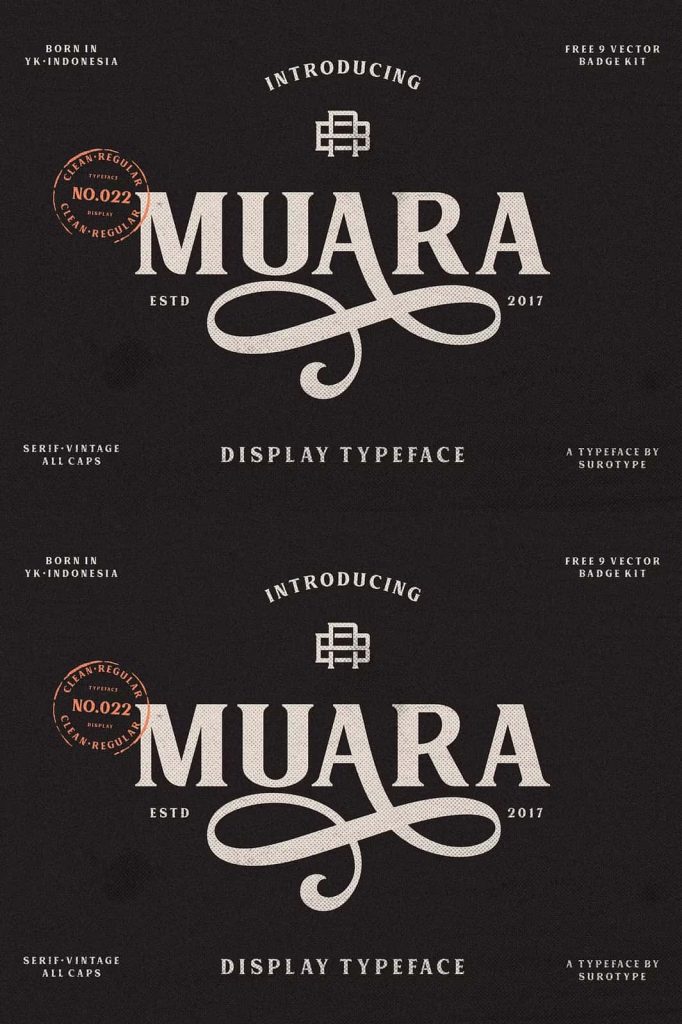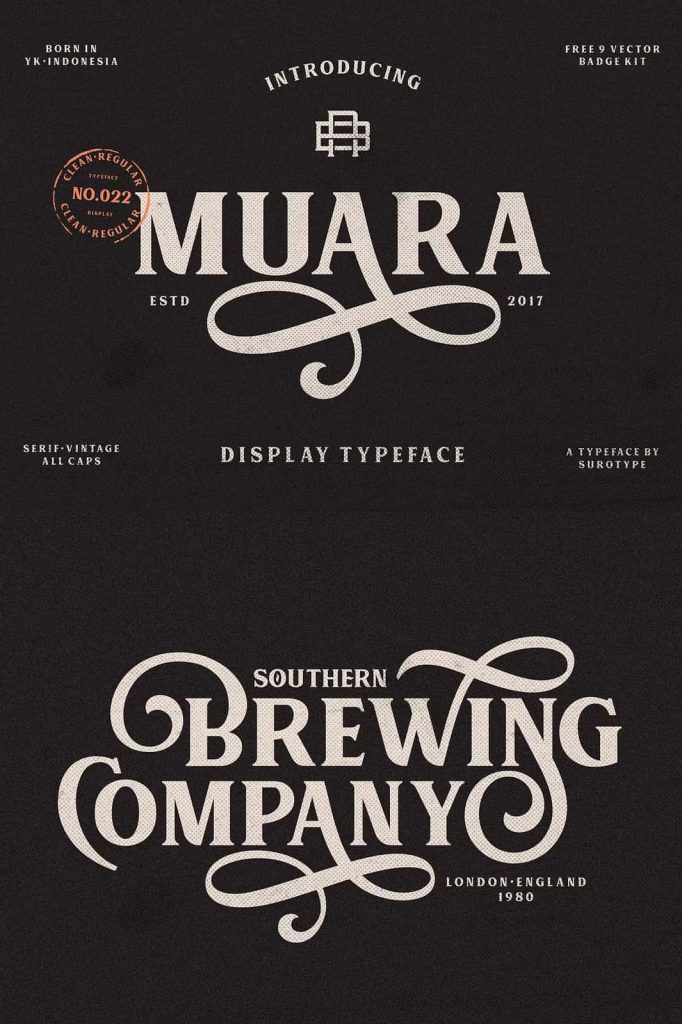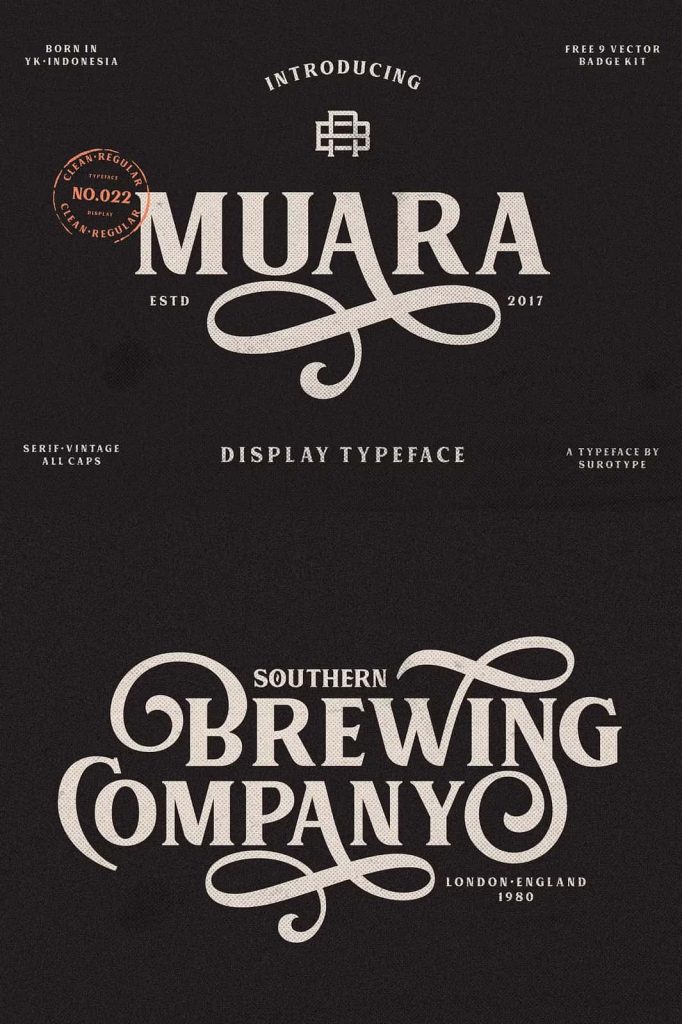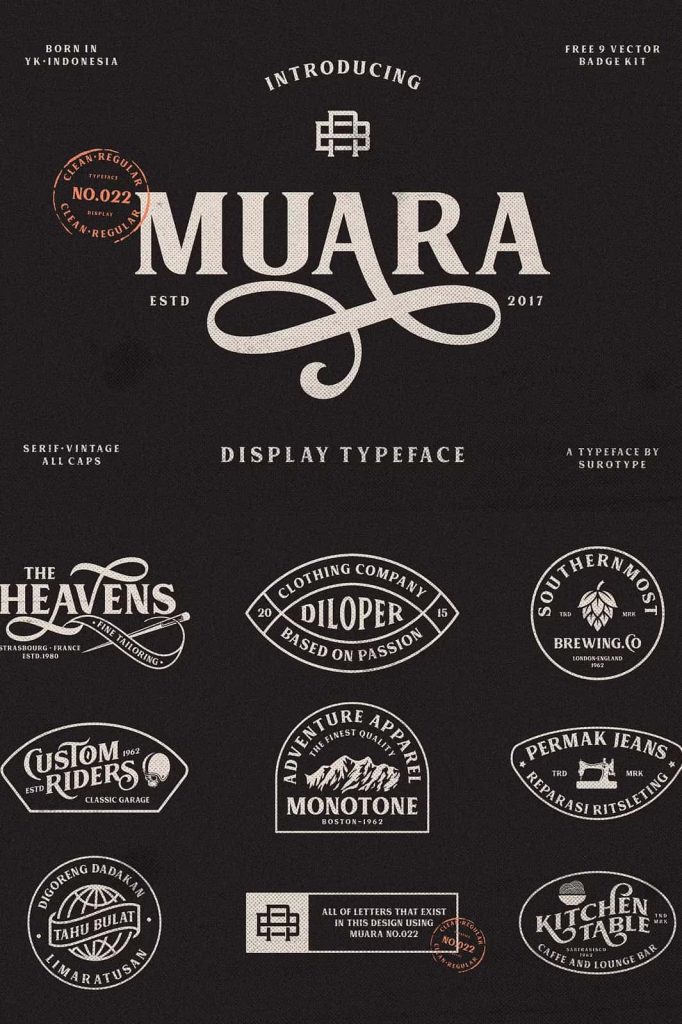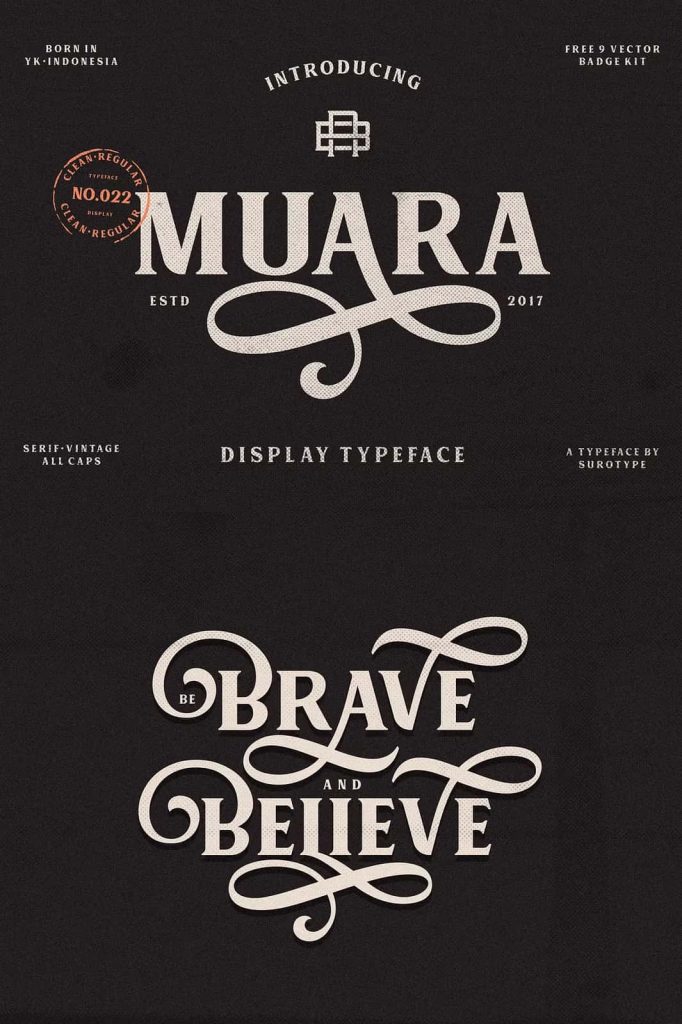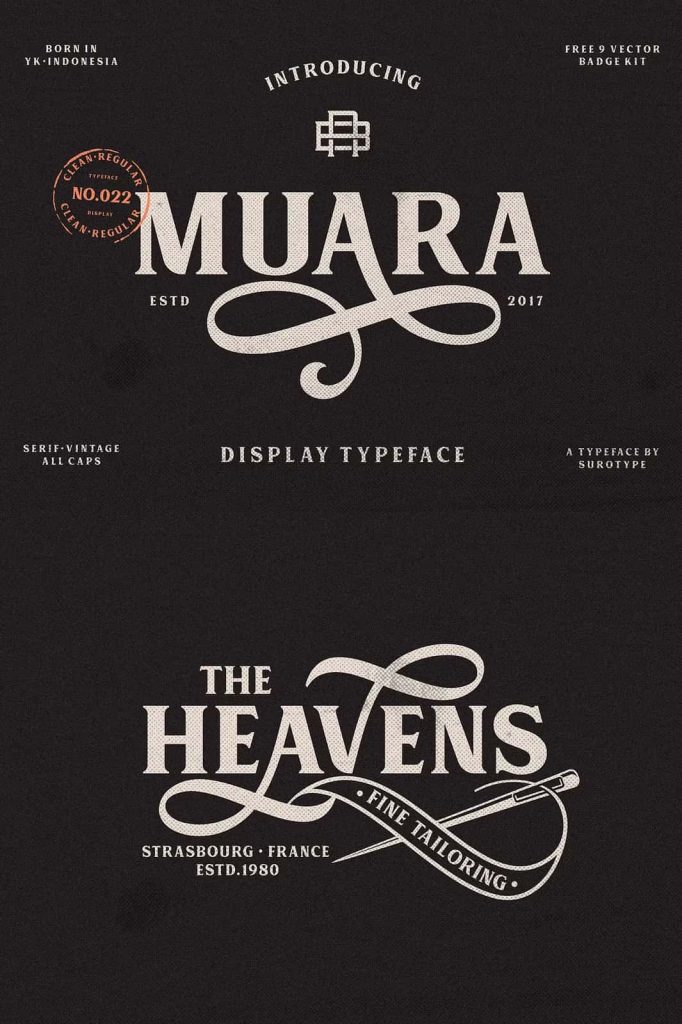
MUARA Typeface – Classic All-Caps Typography for Timeless Design
MUARA Typeface brings a classic typographic taste to contemporary graphic design. Designed for creatives who appreciate refined letterforms and versatile display typography, MUARA offers a strong visual foundation for books, magazines, packaging, branding, signage, and many other creative projects. Its all-caps character gives every word a confident presence, while its extensive collection of glyphs and alternative characters provides designers with the freedom to create distinctive and expressive compositions.
With more than 330 glyphs, MUARA gives you much more than a standard typeface. Its carefully developed character set includes stylistic alternates, stylistic sets, and swash variants, allowing you to personalize your typography and introduce subtle variations throughout your designs. These features make it easier to build a visual identity that feels polished, intentional, and unique.
A Classic Typeface with a Refined Personality
MUARA takes inspiration from classic typography while maintaining the flexibility required for modern design. Its letterforms create a sophisticated visual impression that works especially well when typography becomes the central element of a composition. Whether you use it for a prominent title, a brand name, a packaging label, or a large editorial headline, MUARA gives your text a distinctive and confident appearance.
The all-caps design makes MUARA particularly effective for display applications. Capital letters naturally create visual strength, making the typeface suitable for headlines, titles, logos, signs, and short statements. Designers can use spacing, scale, and alternative characters to further control the rhythm and personality of each composition.
Instead of limiting your creativity to a single fixed appearance, MUARA gives you multiple ways to customize the typography. This versatility makes it a practical choice for projects that require both consistency and variation.
More Than 330 Glyphs for Creative Flexibility
One of MUARA’s strongest features is its extensive character collection. With over 330 glyphs, the typeface provides a broad selection of characters that can support detailed and professional typographic compositions.
The expanded glyph set allows designers to explore different combinations and create more engaging lettering. When working on branding or editorial projects, these additional options can help prevent repetitive typography and introduce subtle differences between words or design elements.
For designers who want greater control over their final artwork, the extensive glyph selection provides valuable flexibility. You can experiment with different characters, combine alternatives, and create lettering that feels carefully crafted rather than automatically generated.
Explore Stylistic Alternates
MUARA includes Stylistic Alternates that allow you to replace standard letterforms with alternative versions. These characters can add personality to logos, titles, packaging, and other prominent design elements.
Stylistic alternates are especially useful when you want to create a distinctive wordmark. A simple change to one or two characters can dramatically alter the overall impression of a name while keeping the typography connected to the original typeface. This gives designers an efficient way to develop custom-looking lettering without manually redrawing every character.
Build Unique Lettering with Stylistic Sets
MUARA also features Stylistic Sets, giving you another practical method for exploring alternative letterforms. These sets allow you to apply coordinated character variations and experiment with different typographic personalities.
Use stylistic sets when creating branding systems that need a consistent but distinctive appearance. You can test different combinations until you find the visual rhythm that best matches your project. This feature becomes particularly valuable for designers working on logos, editorial headlines, packaging names, and promotional graphics.
Add Elegance with Swash Variants
For projects that need an extra decorative touch, MUARA includes Swash variants. These expressive characters can introduce movement and elegance without forcing you to change the entire typeface.
Use swash characters selectively to highlight important letters, create decorative titles, or add personality to a logo. They can work beautifully in sophisticated branding, book covers, editorial layouts, invitations, packaging, and signage. When used strategically, swashes can create a memorable focal point while preserving the classic character of the overall typography.
Perfect for Books and Editorial Design
MUARA makes a strong choice for editorial applications because its classic personality can help establish a polished visual tone. Use it for book covers, chapter titles, magazine headlines, editorial campaigns, and other prominent typographic elements.
Choose MUARA Typeface when you need a classic display font with enough versatility to support contemporary creative projects. With its refined all-caps lettering and extensive selection of alternative glyphs, MUARA helps you create typography that feels confident, elegant, distinctive, and thoughtfully designed.